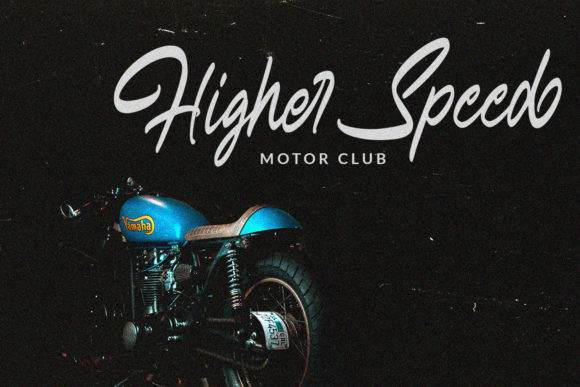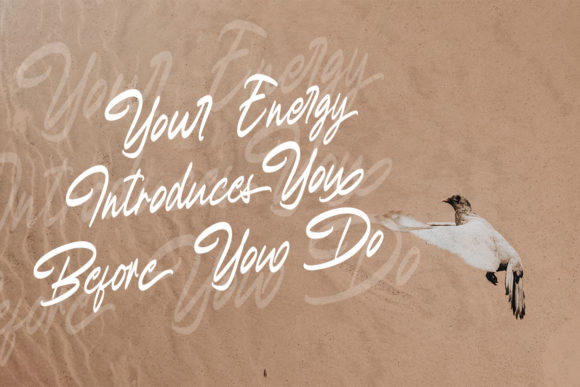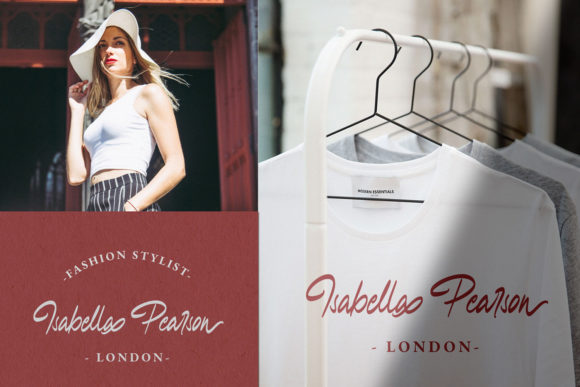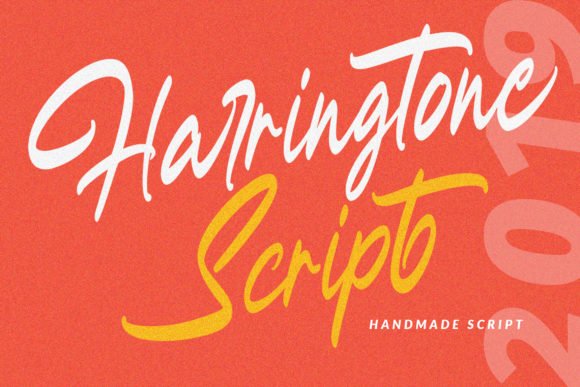
Introduction to Harringtone Script Font
Harringtone is a fun and bold handwritten font with a lot of authentic charm.
Fall in love with its striking feel .
Key Features of Harringtone Script Font
Why Choose Harringtone Script Font?